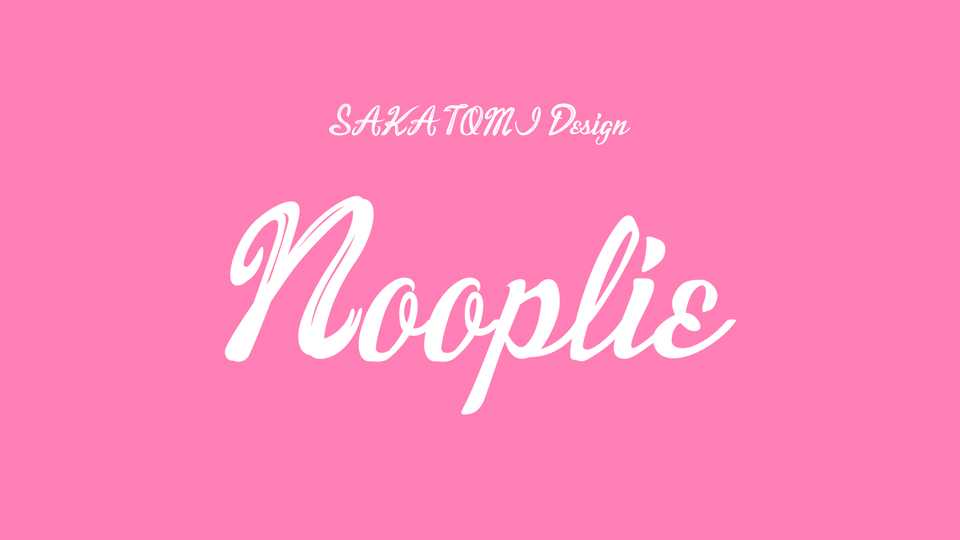
Download Nooplie font, a fresh brush calligraphy typeface with a smooth flow. With its simple and natural look Nooplie font is perfect for notes, crafts, cards, texts and more.
Designer: SAKATOMI Design